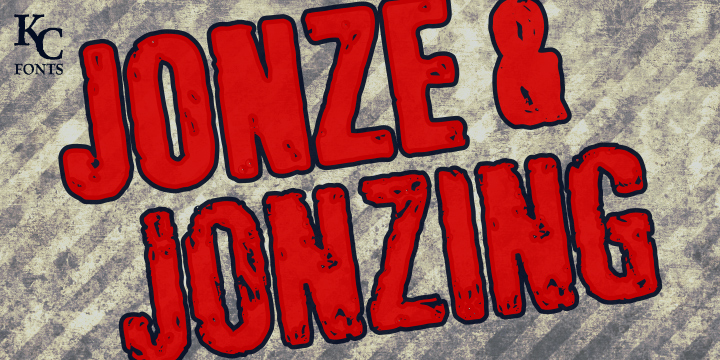
Preview and download Jonze & Jonzing Font. Created by KC Fonts in Fancy Eroded styles with Demo license.
This demo is free for PERSONAL USE ONLY. The full Jonze and Jonzing font family is made up of 4 fonts & each font has 500 glyphs! OpenType features: Contextual Alternates, Double Letter Ligatures, Randomization & Stylistic Alternates. Each letter has 4 variations and each number has 2, allowing your work to look authentic and handmade. Purchase it here: http://www.myfonts.com/fonts/kcfonts/jonze/?refby=KCFonts Donations are also greatly appreciated! Blog: http://www.kcfonts.com Facebook: http://www.facebook.com/KCFonts Twitter: http://www.twitter.com/KCFonts More Fonts: http://www.dafont.com/kevin-christopher.d3302?fpp=50&psize=l MyFonts: http://www.myfonts.com/foundry/KC_Fonts/?refby=KCFonts |